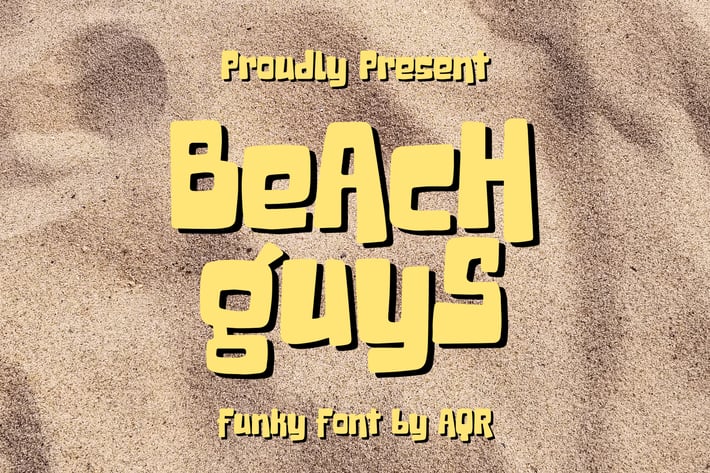
Beach Guys - Funky Font
Beach Guys - Funky Font contains a lowercase, uppercase, symbol, and also supports multi-language. There’s a lot of ligature in this font. Beach Guys - Funky Font also comes with ligatures, stylistic alternates and many more.
this font suitable for fashion, branding, catalog and other design that you want.